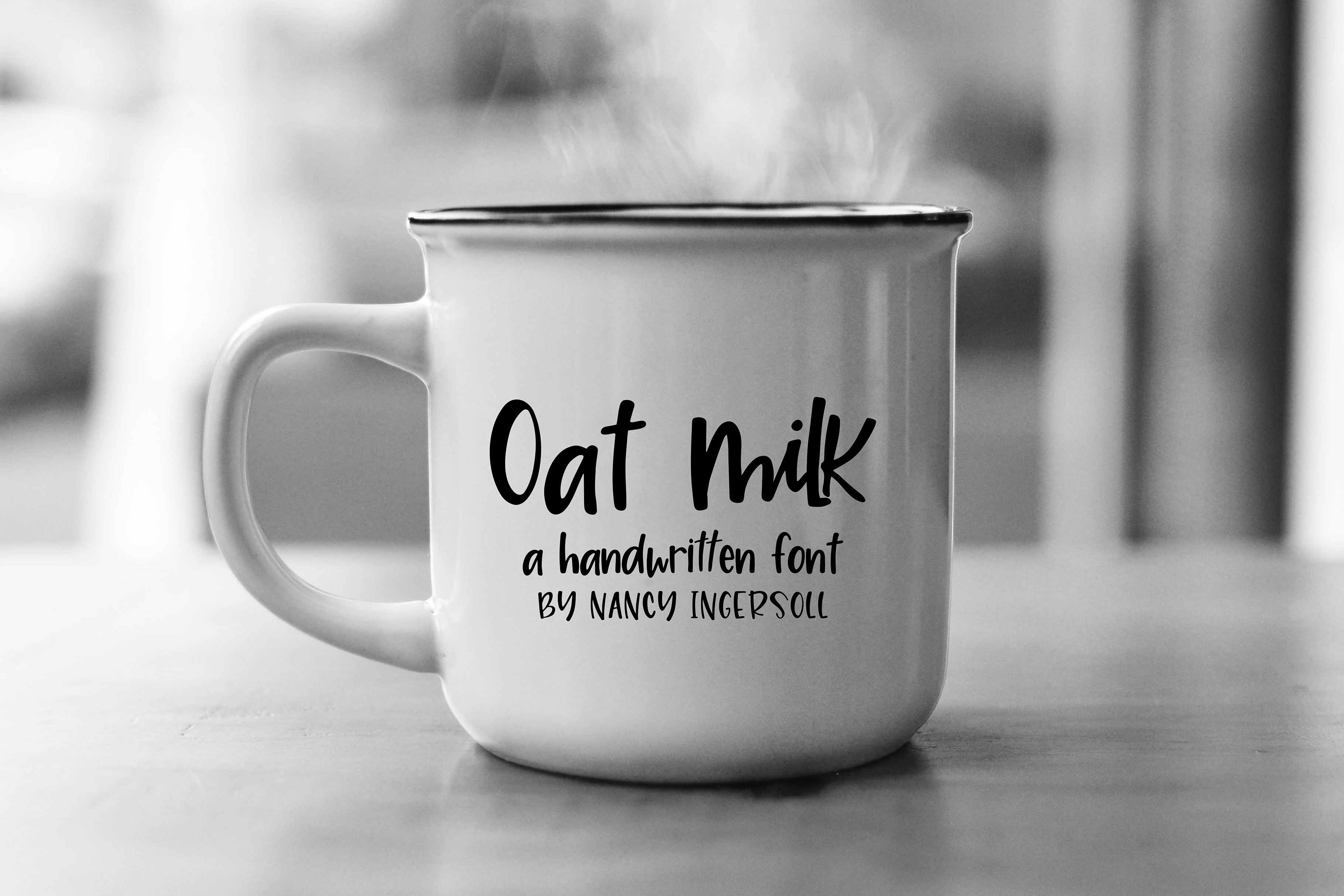
Oat Milk - a handlettered font
Oat Milk is a handwritten font by Nancy Ingersoll. In addition to the letters, numerals and symbols to get the job done, this font also comes with bonus glyphs to express its love of Oatmeal and Oatmilk Lattes.
Designed to stand on its own but also goes with an abundance of other fonts. With upper and lowercase letters with a HUGE range of foreign language support. Multilingual support with accented characters for international (Western European, Central European and South Eastern European) users include the extra character variations that other languages require like the German Esstsett, this font also includes the British Pound and Euro symbol.